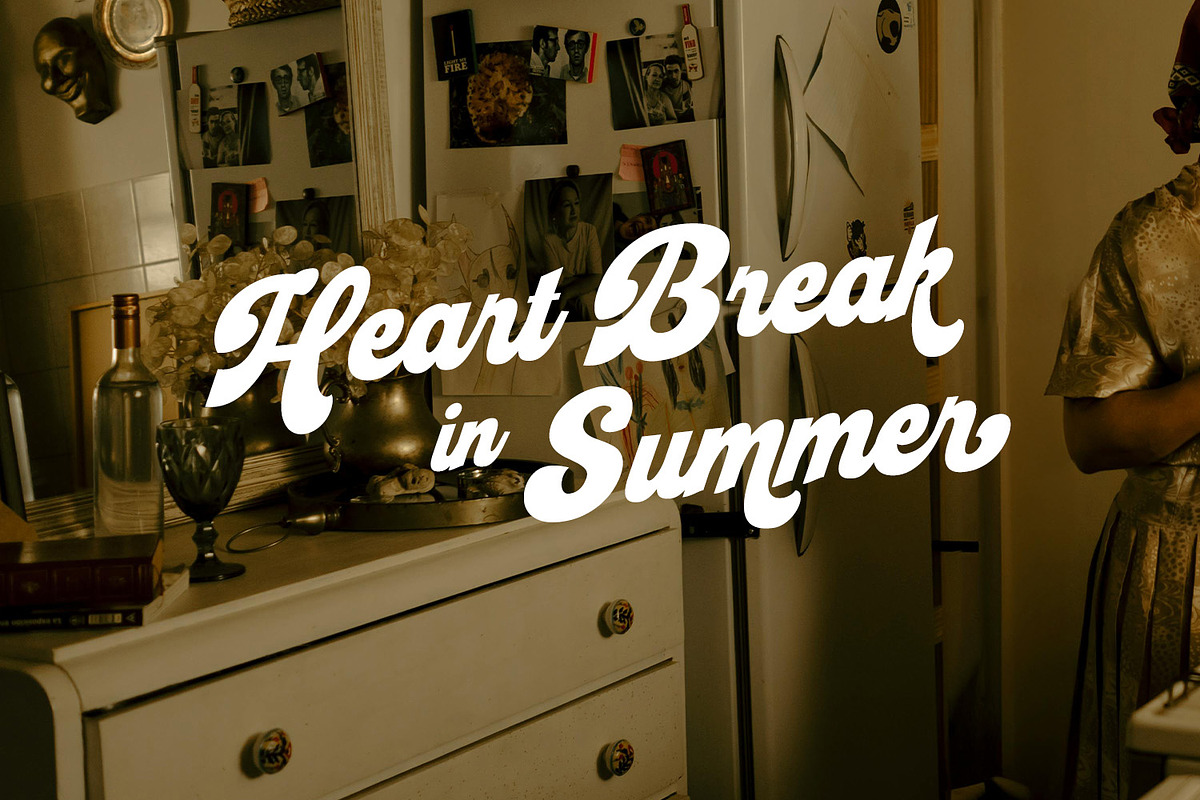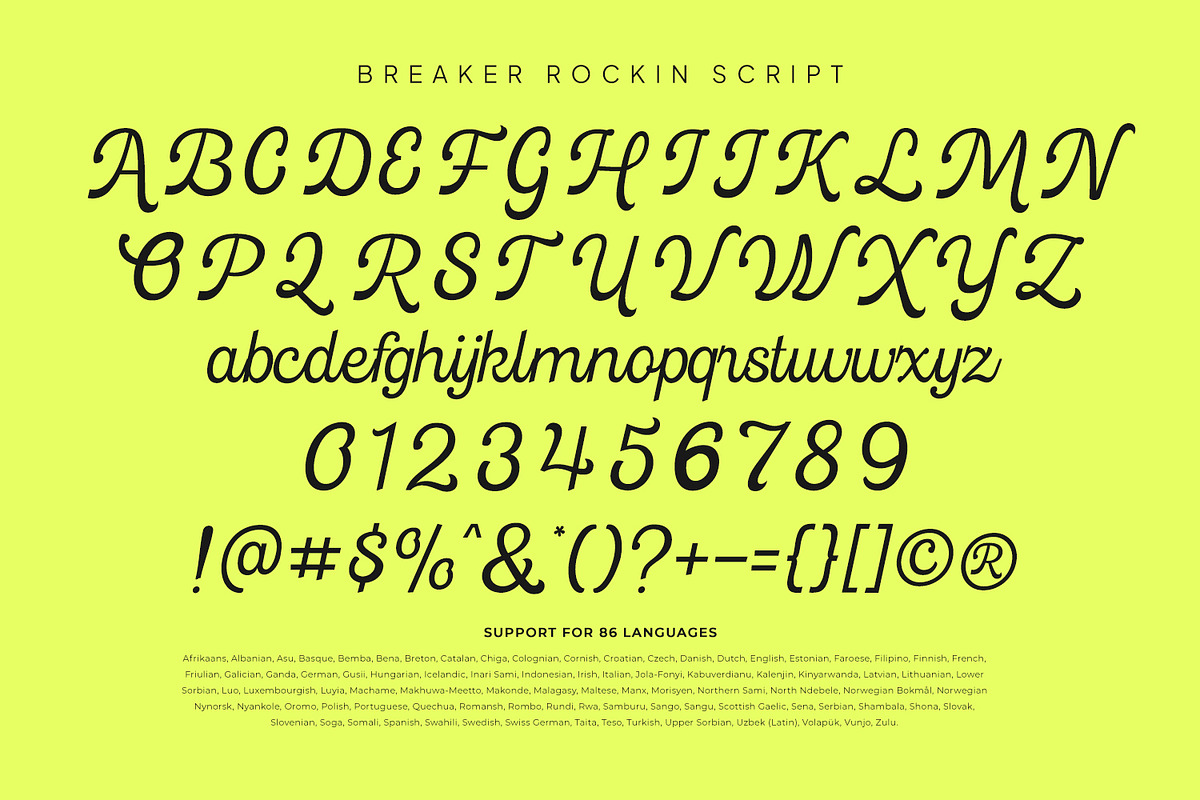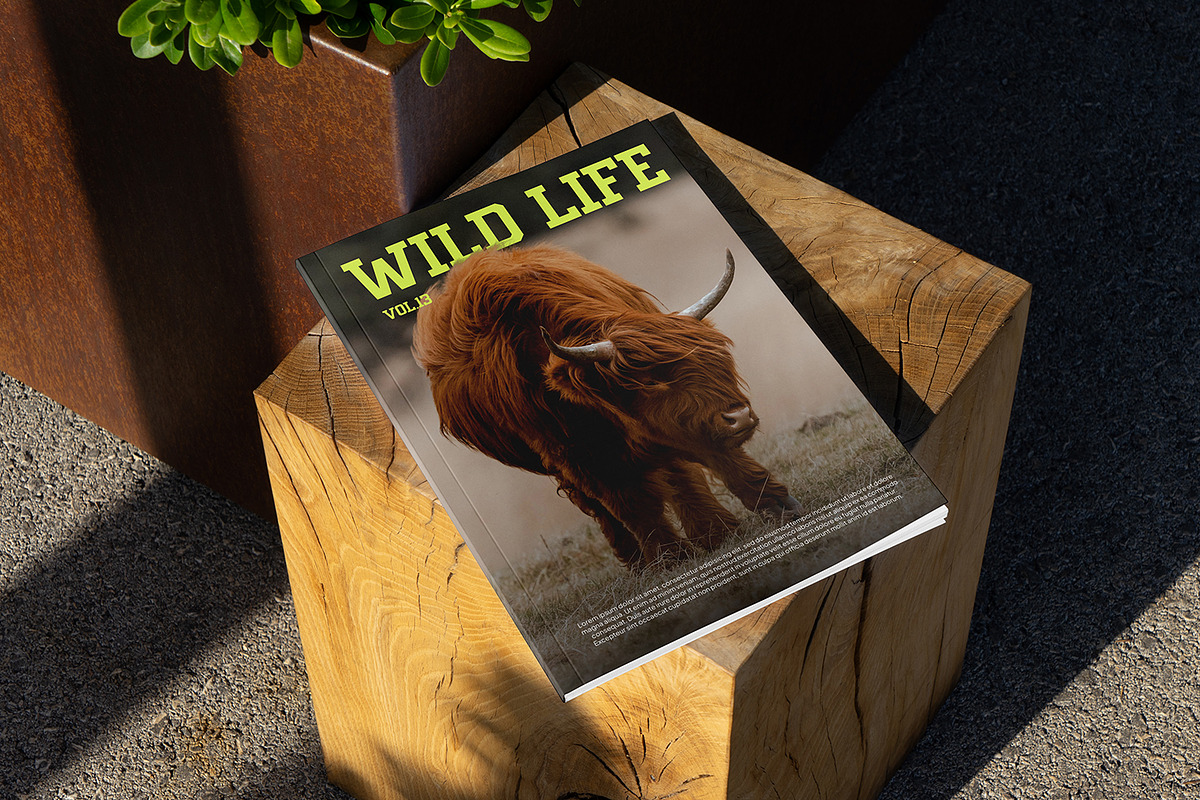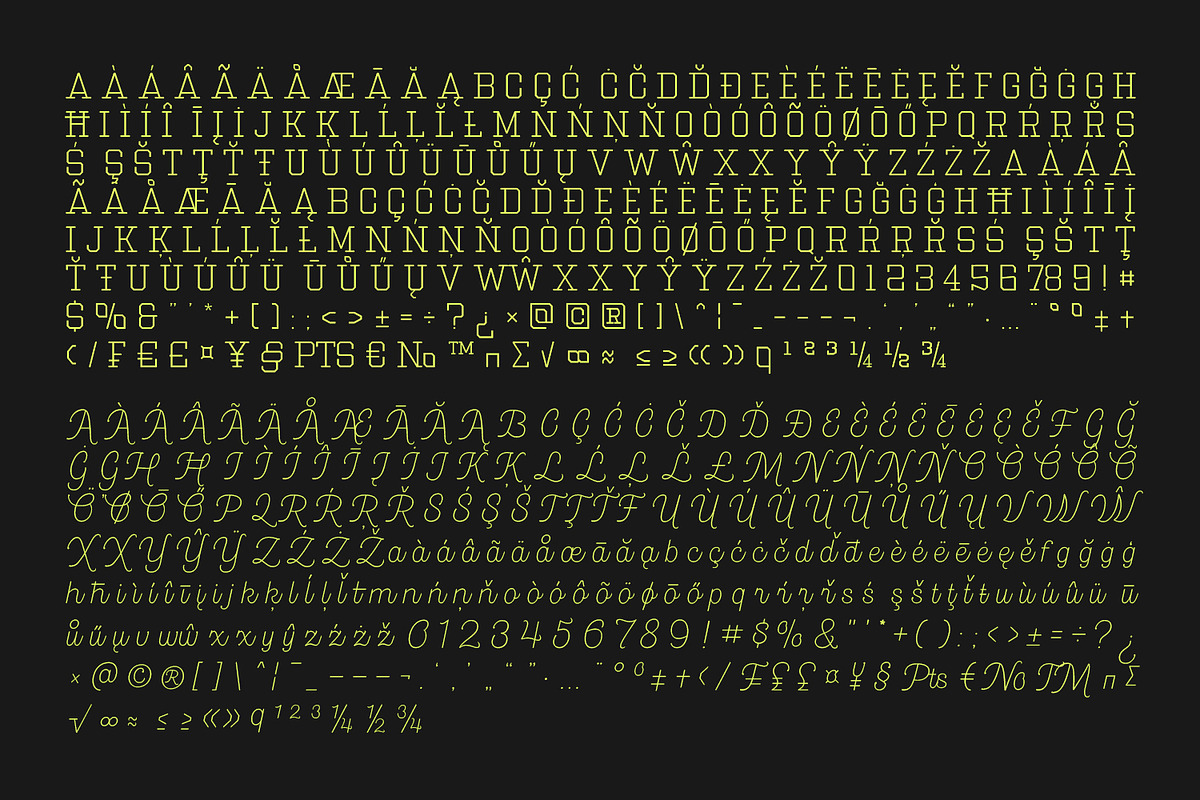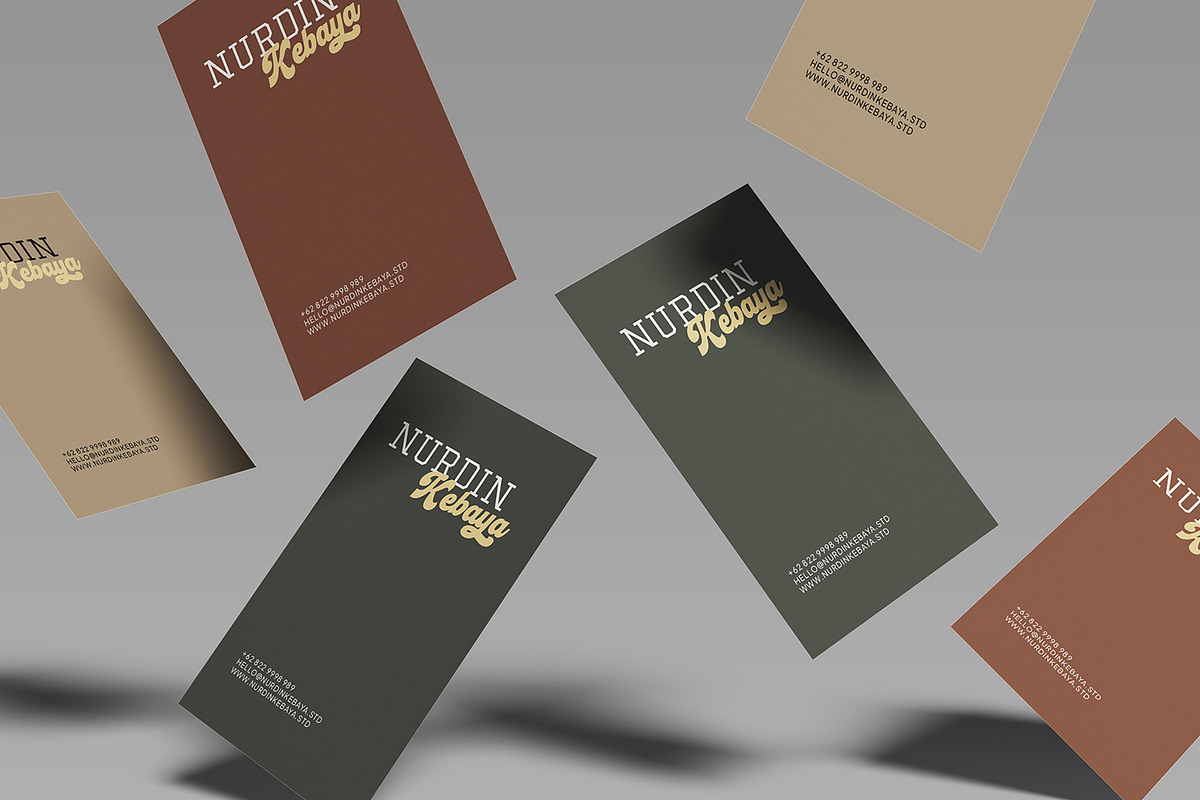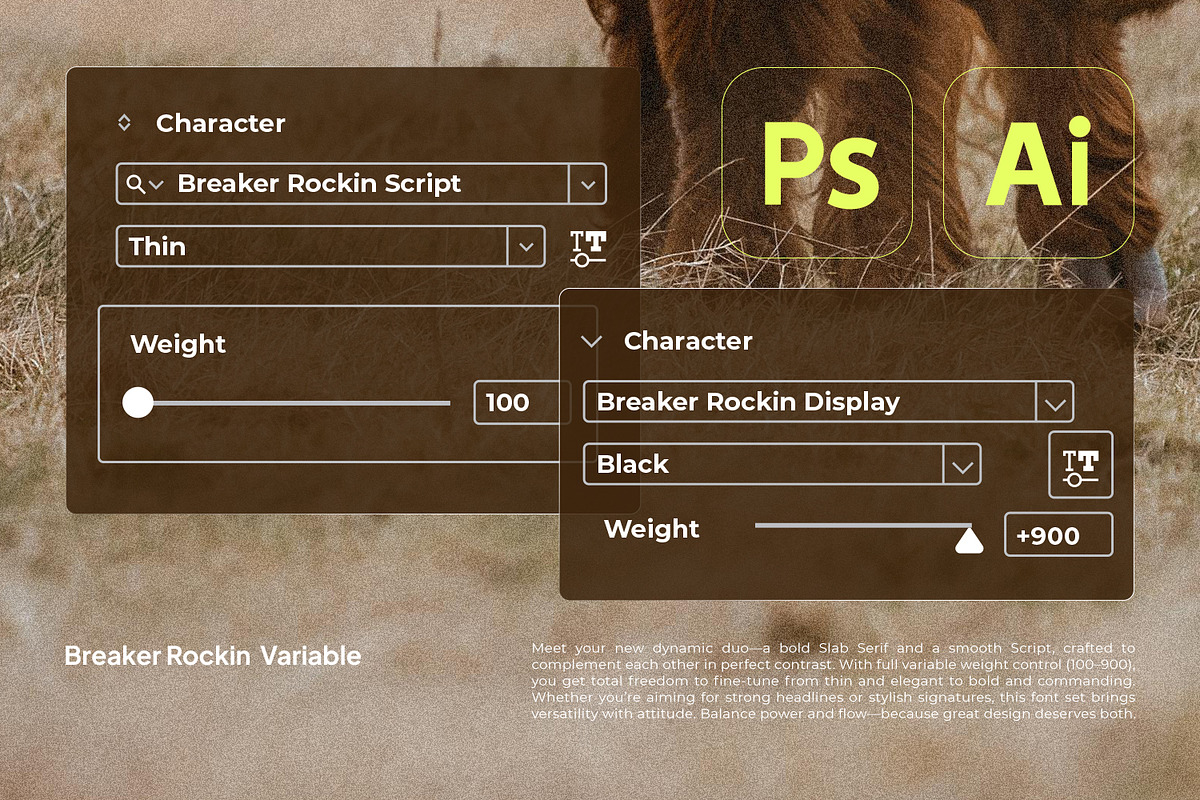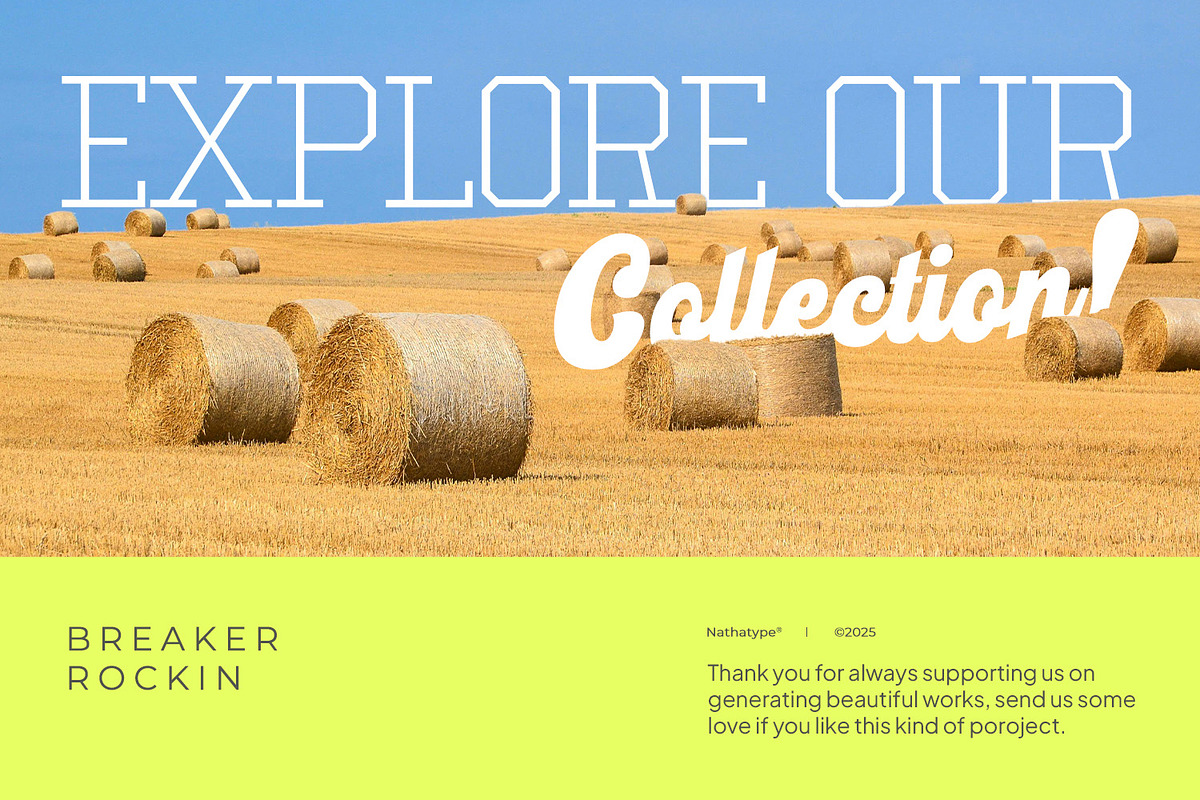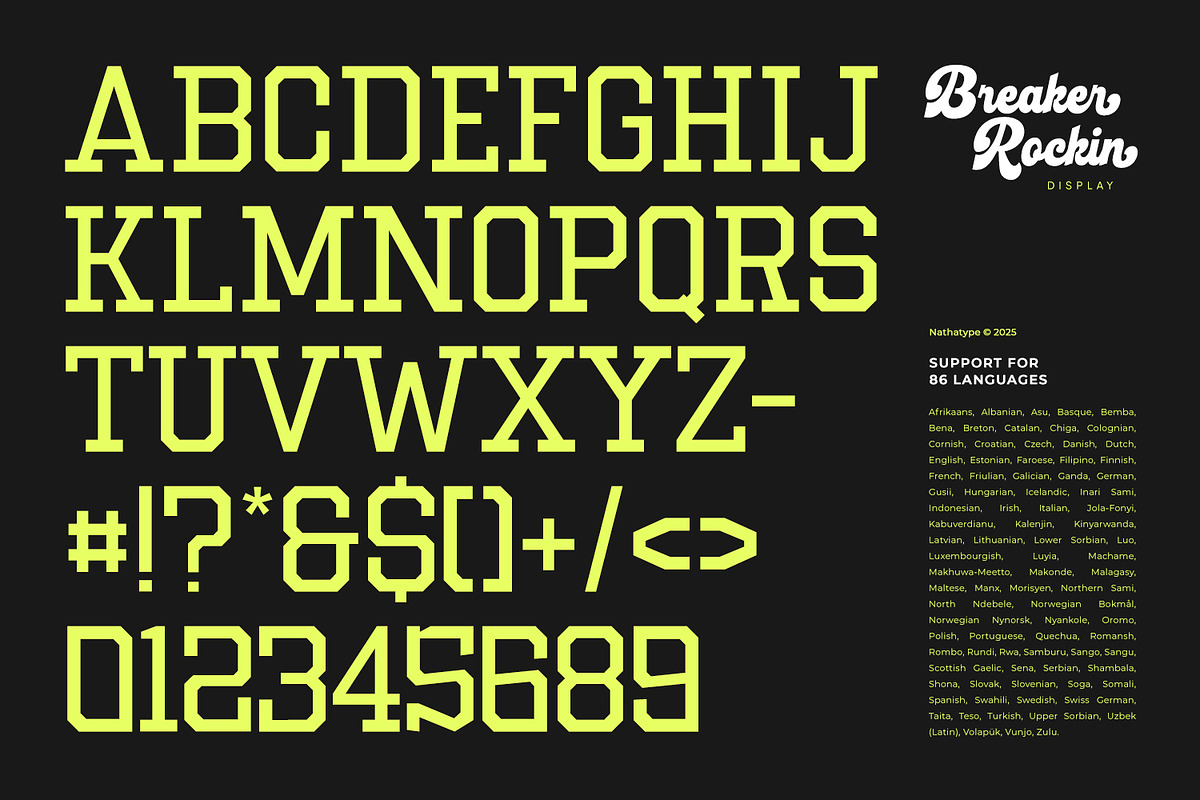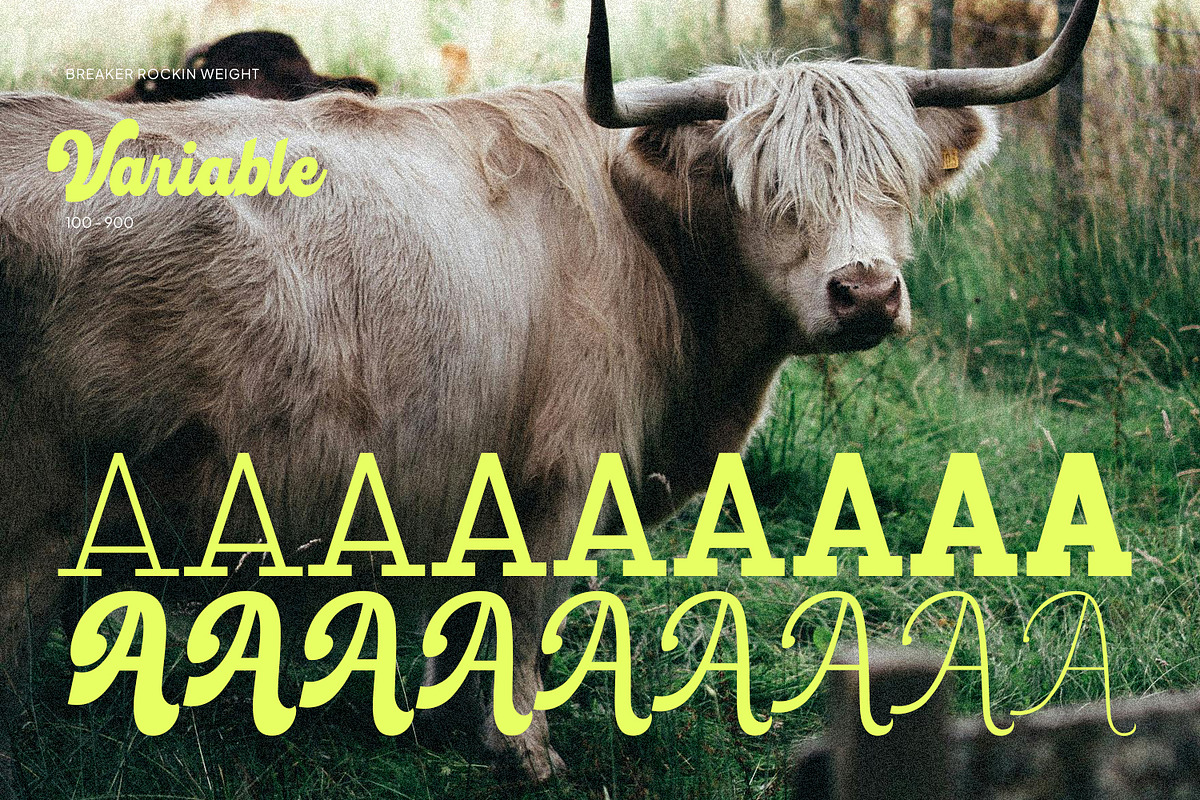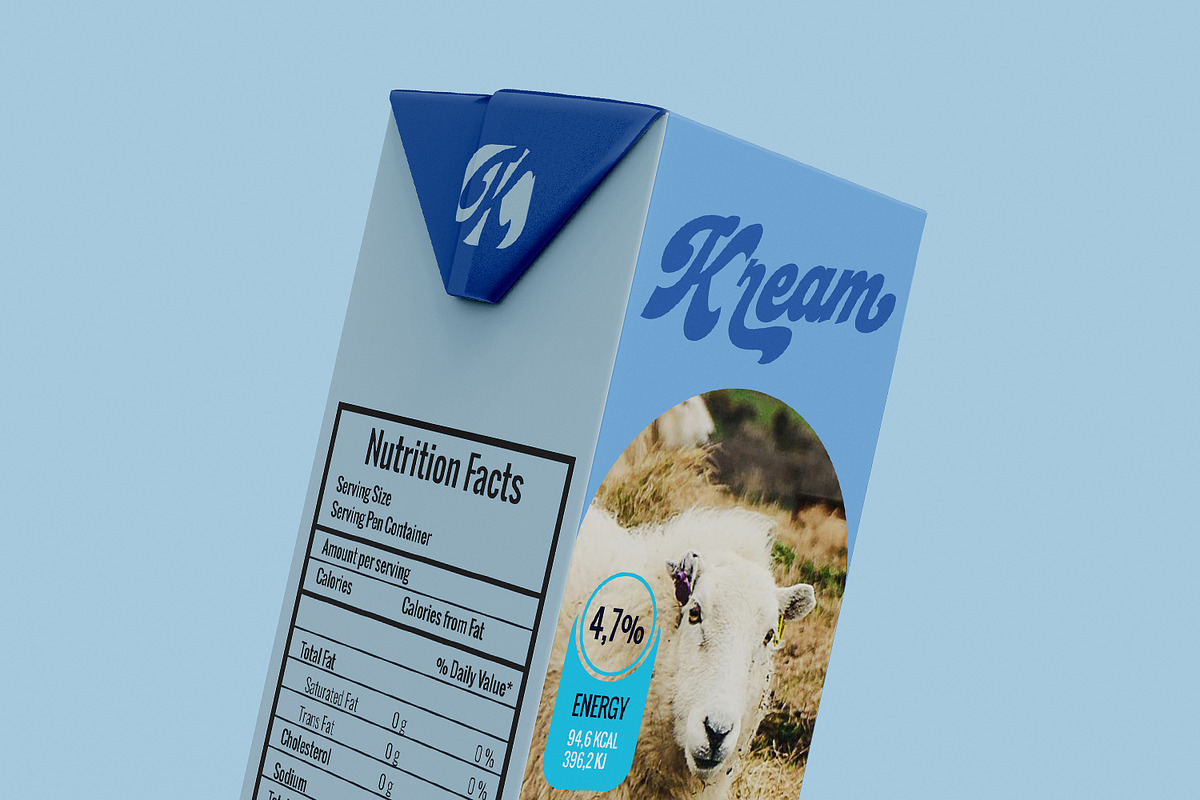
Breaker Rockin
Two is better than one, right?
With Breaker Rockin, you will not have problems in terms of lack font options. It is a versatile font duo that brings your design result in vintage looks. The display font comes all in uppercase characters makes this font easy to read, while the script font shows bold and curvy strokes. You can mix and match this harmonious font duo to make gorgeous result in your design. Even more, this font duo has fascinating features that allows you maximize your design.
- Stylistic Sets